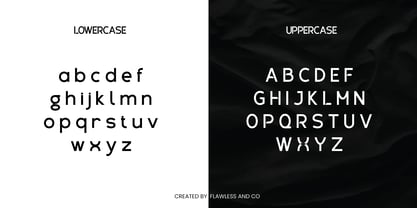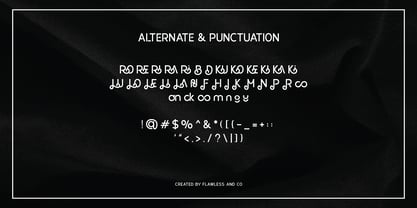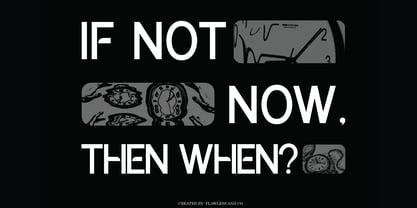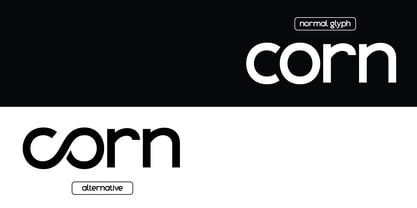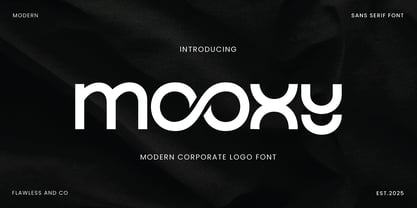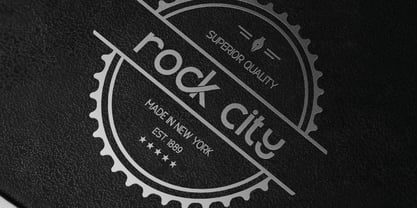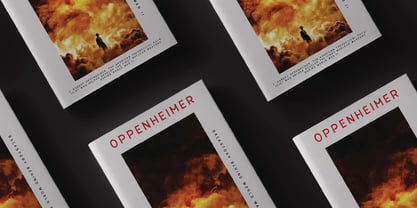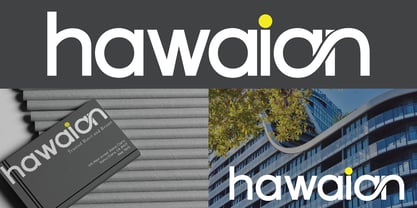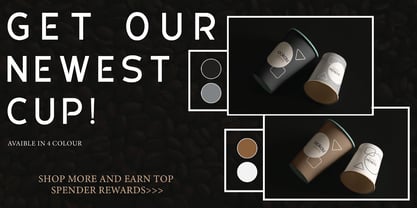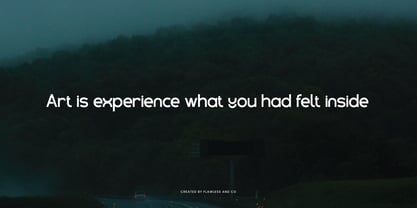
Mooxy
by Flawlessandco
The Mooxy Font Family was designed by Achmad Yani and published by Flawlessandco. Mooxy contains 1 styles. More about this family
Mooxy is a modern logo font designed to bring a sleek and professional touch to branding and identity projects. With its clean lines and contemporary style, this font is perfect for logos, business branding, packaging, website headers, and marketing materials. Mooxy offers a sophisticated yet minimalistic look, making it ideal for businesses and creatives looking for a bold and memorable visual identity. Features : Multilingual, Uppercase alphabet A-Z, Lowercase alphabet a-z, Numbers 0-9, Some punctuation, Alternates & Ligatures NOTE: For all the characters are also available, accessible in the Adobe Illustrator Glyphs Panel, or in Adobe Photoshop Character Open Type Panel. If you need help, just write me! Thanks so much for checking out my shop!